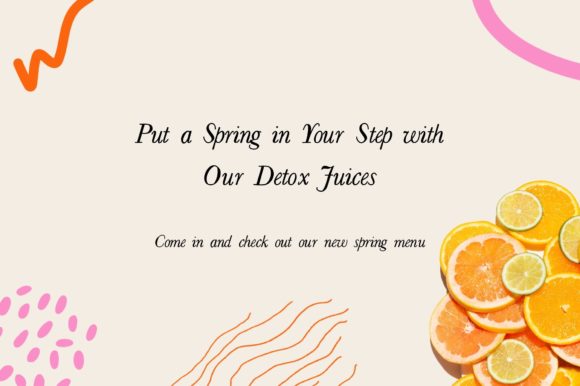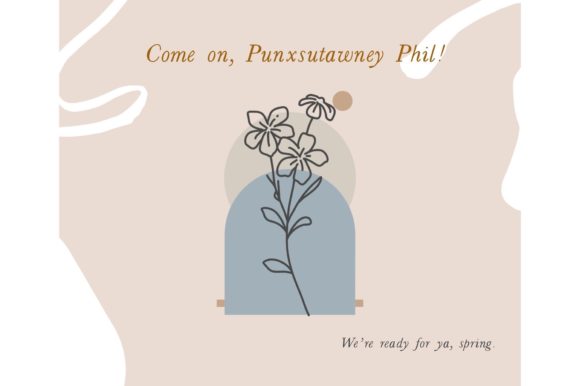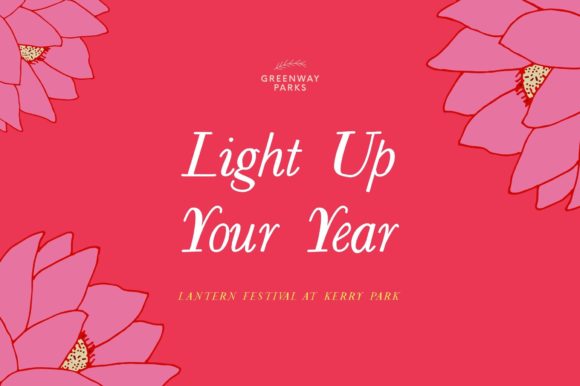
Introduction to Kehlani Font
Have you ever been in the middle of a creative project, pouring your heart and soul into a design, only to feel like something’s missing? That’s where the perfect design resource comes in – a font that can elevate your entire visual identity. For many designers, finding the right font can be the difference between a great project and a truly exceptional one.
That’s where Kehlani Font comes in – a beautifully balanced and clean handwritten font that’s sure to add a touch of sophistication to any design. With its versatility and high-quality aesthetic, Kehlani Font is an invaluable asset to any designer’s library, whether you’re working on a personal project or a high-profile client.
Key Features of Kehlani Font
- Designed with a unique, modern aesthetic, perfect for adding a touch of sophistication to any creative project.
Honest Review: Kehlani Font
As a designer, I’m always on the lookout for high-quality design resources to elevate my creative projects. Recently, I came across the Kehlani Font, and I’m excited to share my honest review.
- Beautiful, modern design: The Kehlani Font has a sleek and sophisticated look that’s perfect for contemporary projects.
- High-quality glyphs: The font includes a wide range of glyphs, ensuring that you’ll have everything you need for your design.
- Limited language support: The Kehlani Font only includes glyphs for the Latin alphabet, which may be a limitation for designers working with non-Latin scripts.
To get the most out of the Kehlani Font, use it for titles, headings, and short paragraphs in your creative project. It’s ideal for music-related projects, fashion designs, or any project that requires a unique and modern font.